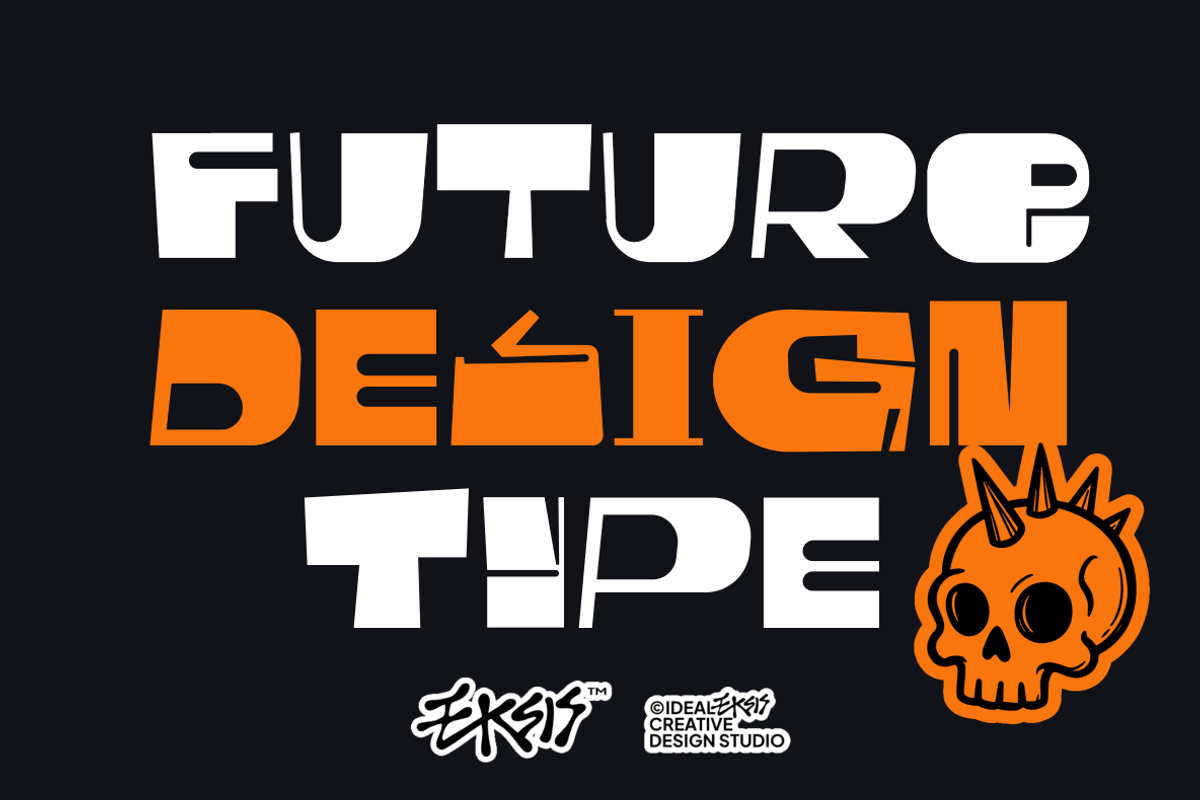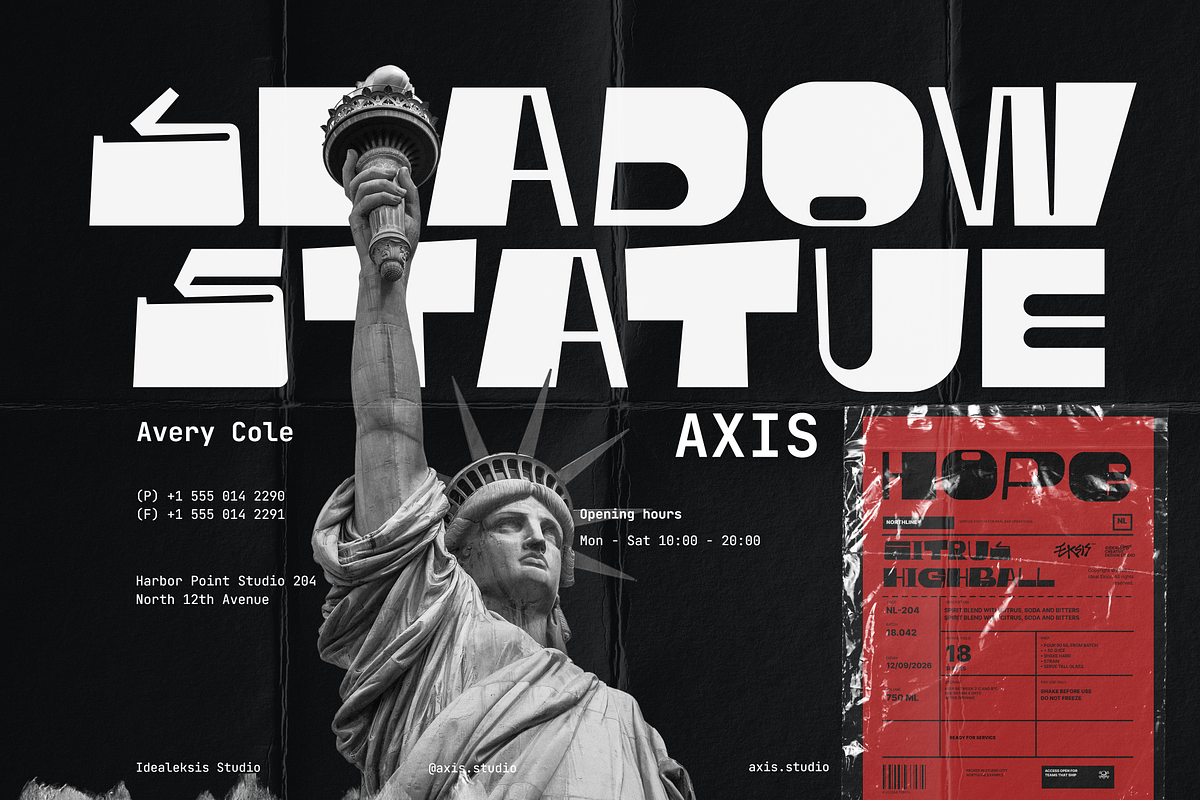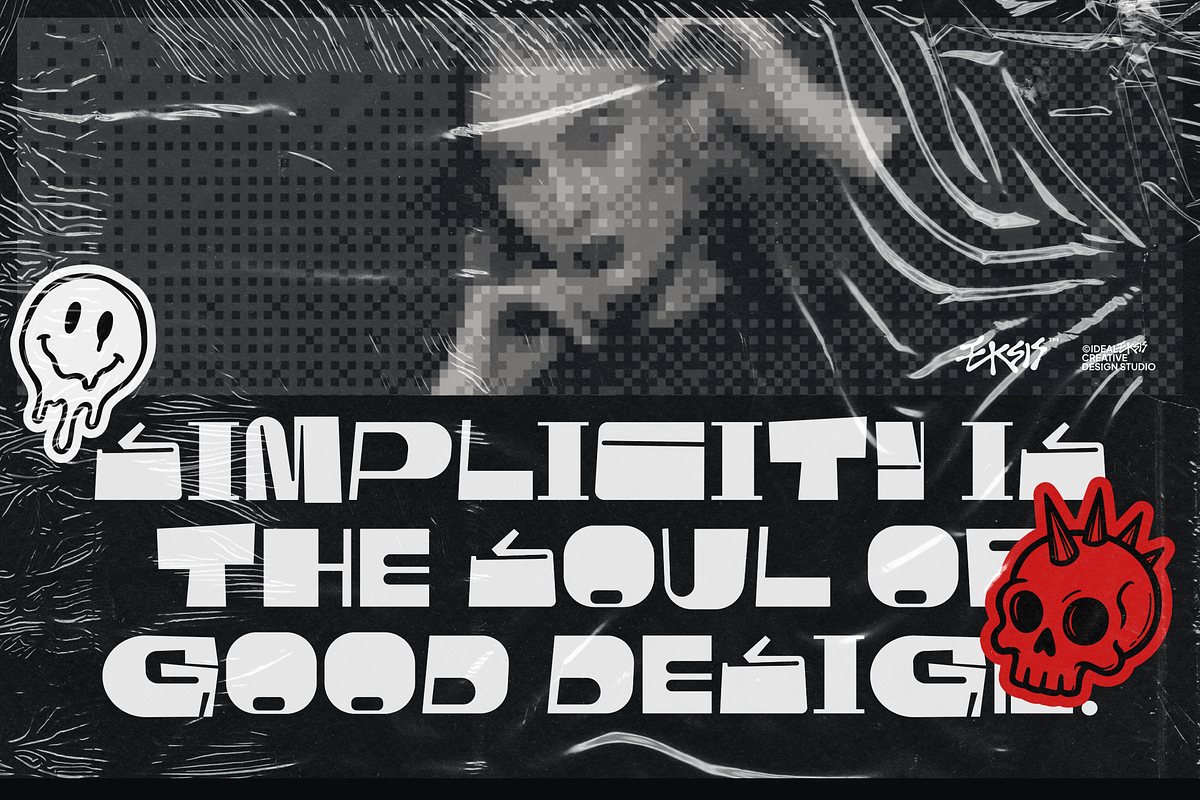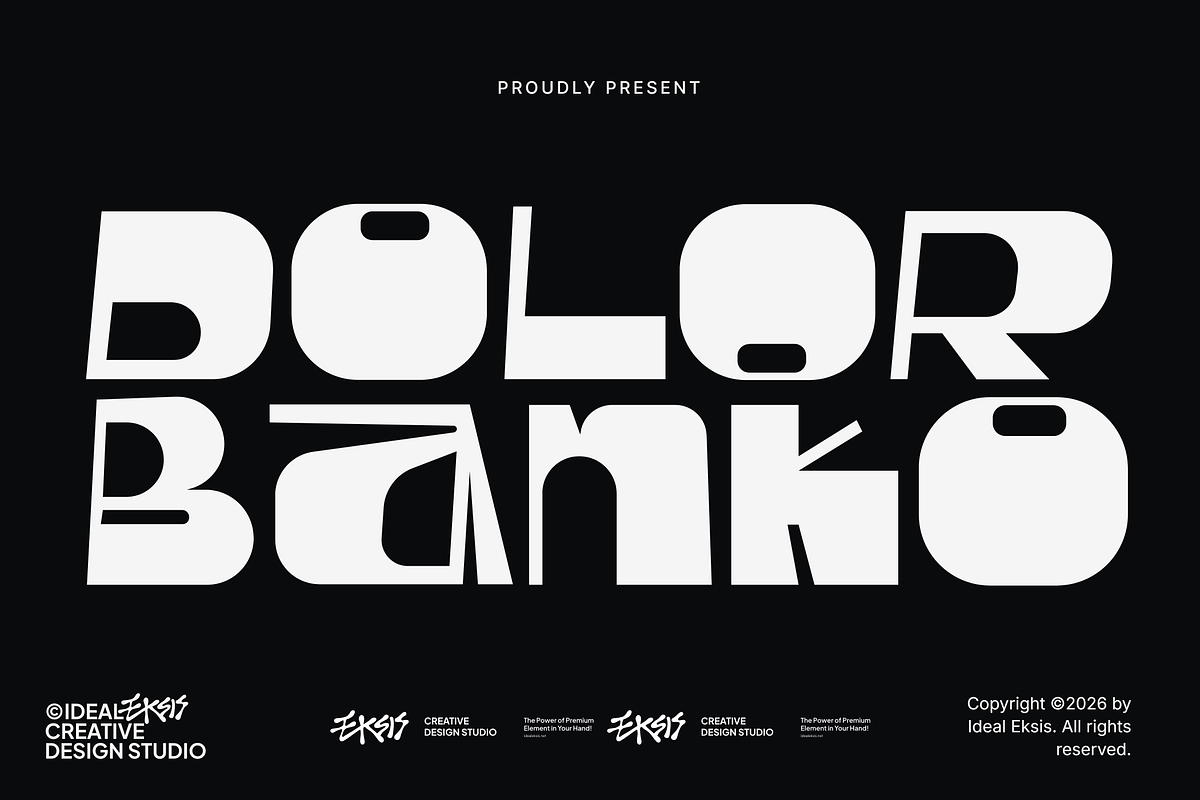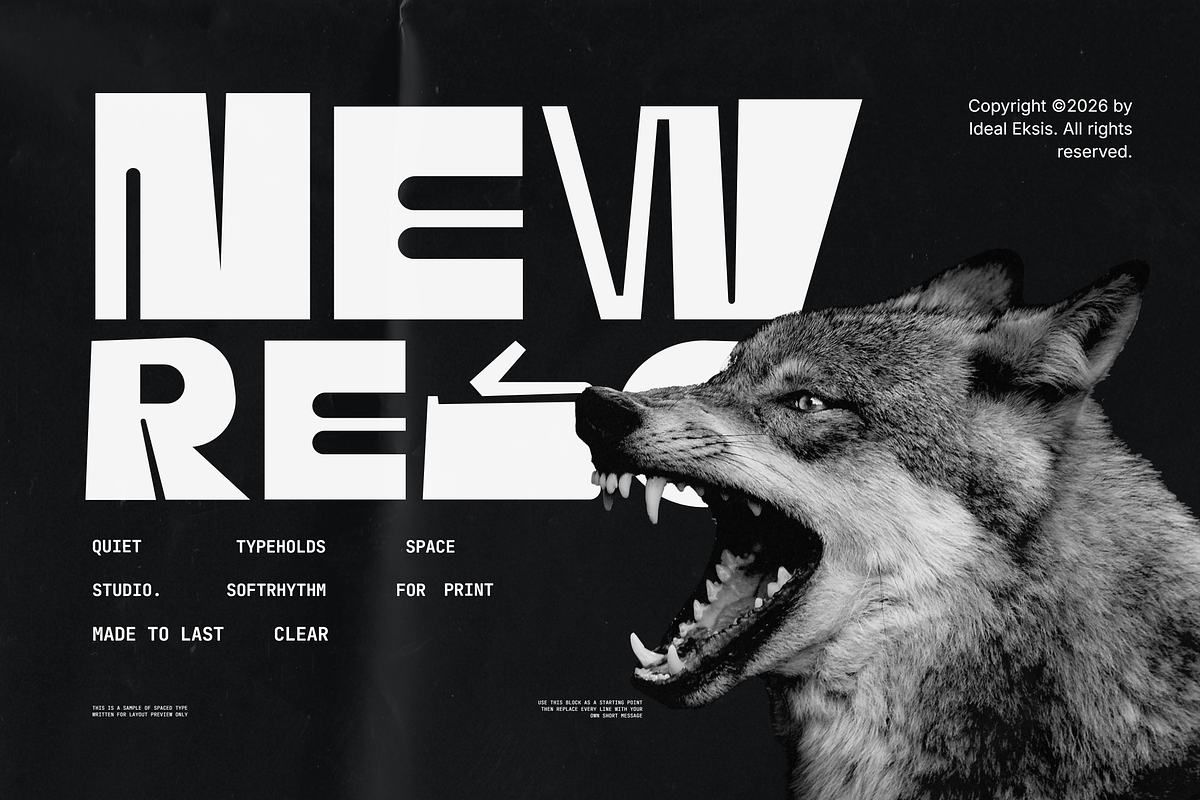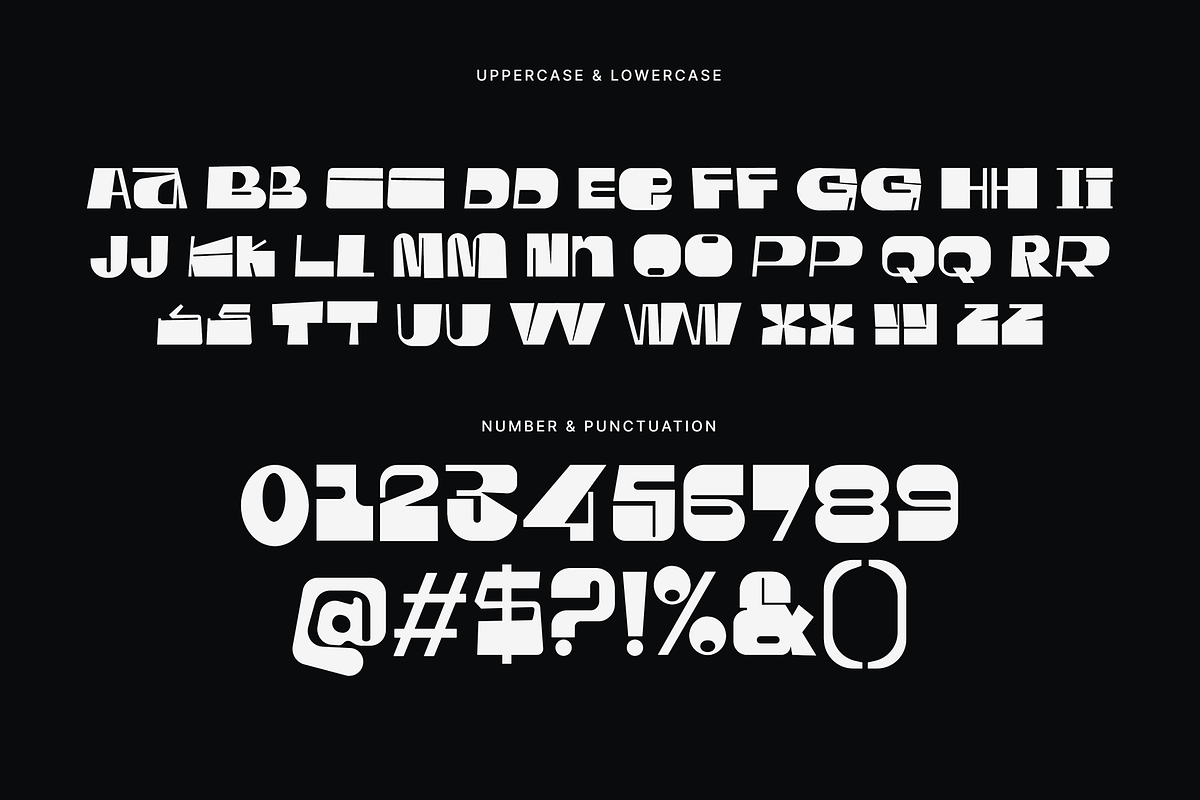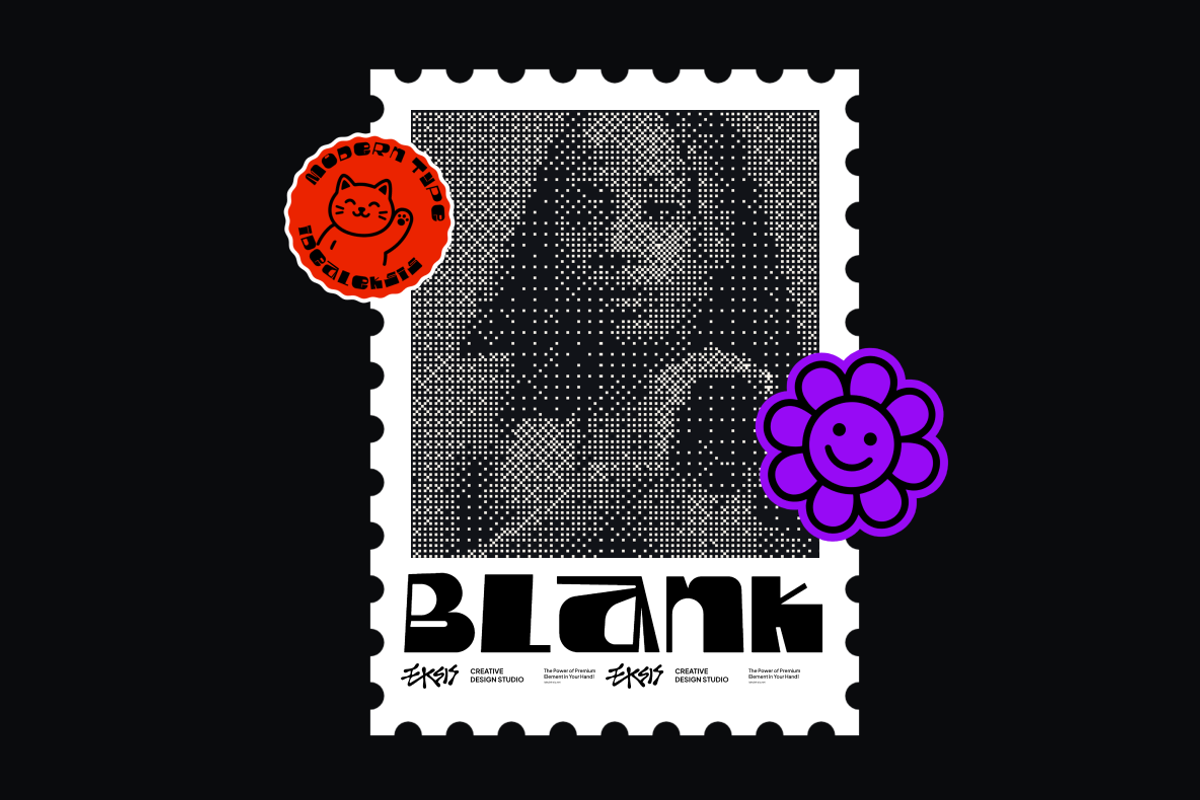
Dolor Banko
An ultra-bold, experimental display typeface featuring heavy geometric block letterforms with high-contrast negative space. The glyphs showcase extreme weight, minimal counters, and unique pill-shaped cutouts that create a striking, futuristic rhythm. Its brutalist aesthetic and solid, monolithic structure make it perfect for high-impact headlines, poster designs, branding, and contemporary visual identities that require a powerful, commanding presence.